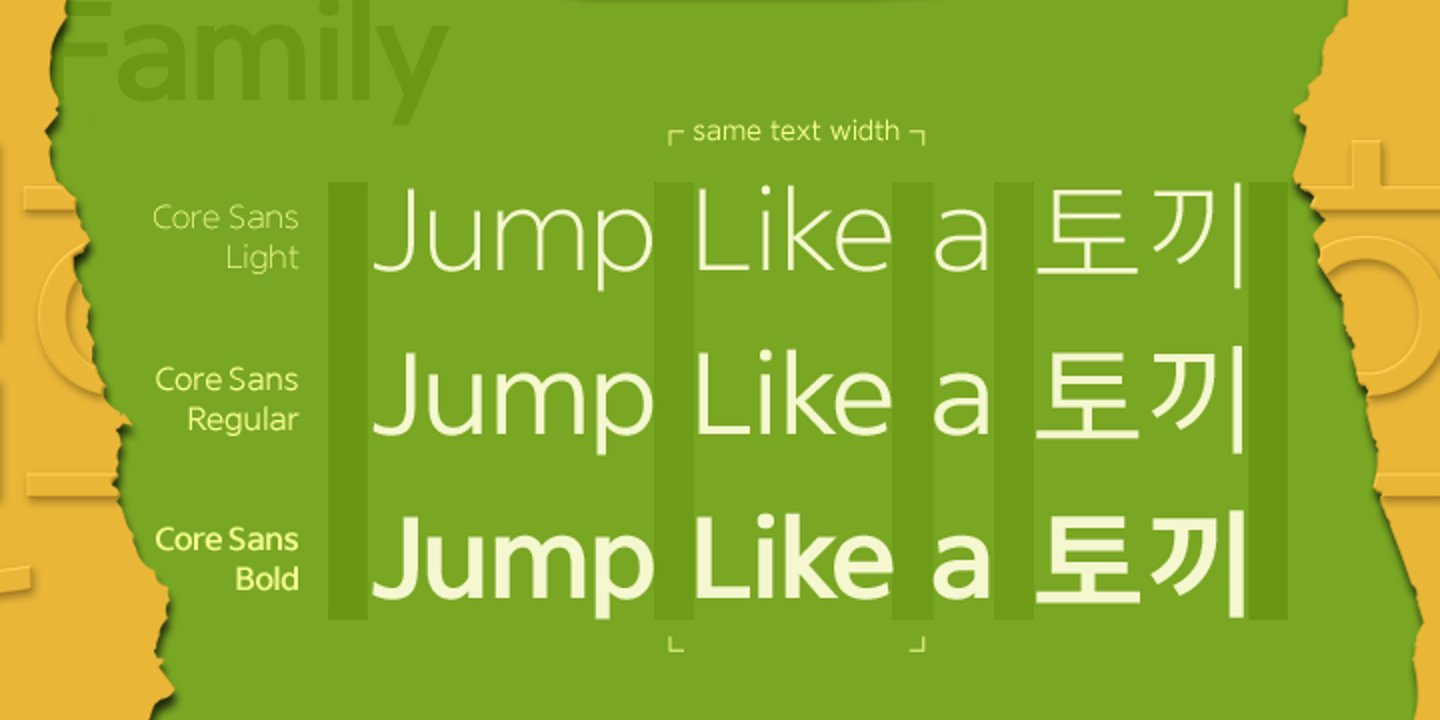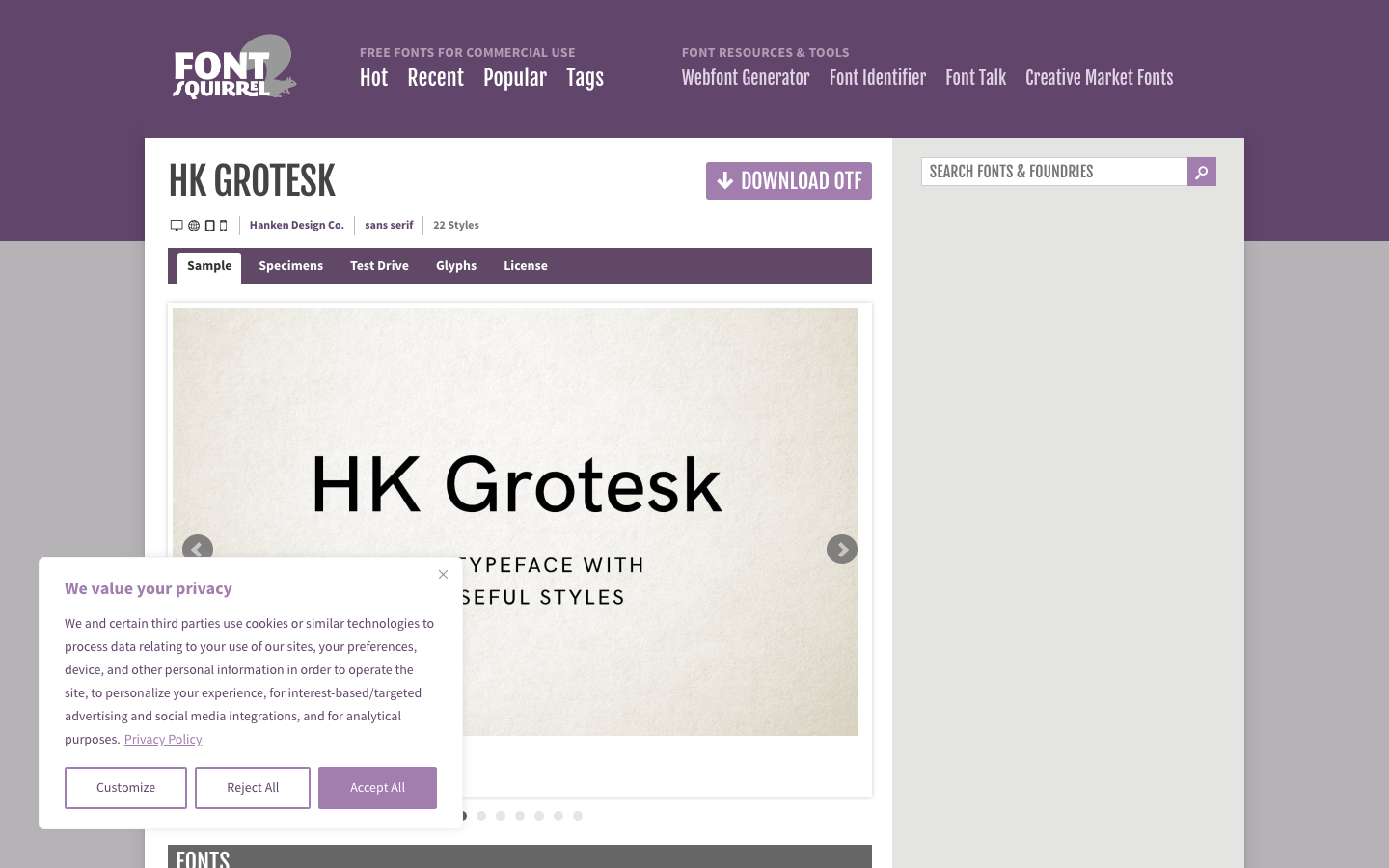
Core Sans vs HK Grotesk
Core Sans and HK Grotesk are both sans-serif typefaces sharing a neo-grotesque foundation. The two share 92% design similarity overall. Compare which suits your Branding project.
Core Sans
Neo-Grotesque
ModernMinimal
HK Grotesk
Neo-Grotesque
ModernMinimal
Core Sans
HK Grotesk
| Feature | Core Sans | HK Grotesk |
| Source | S-Core | Hanken Design Co |